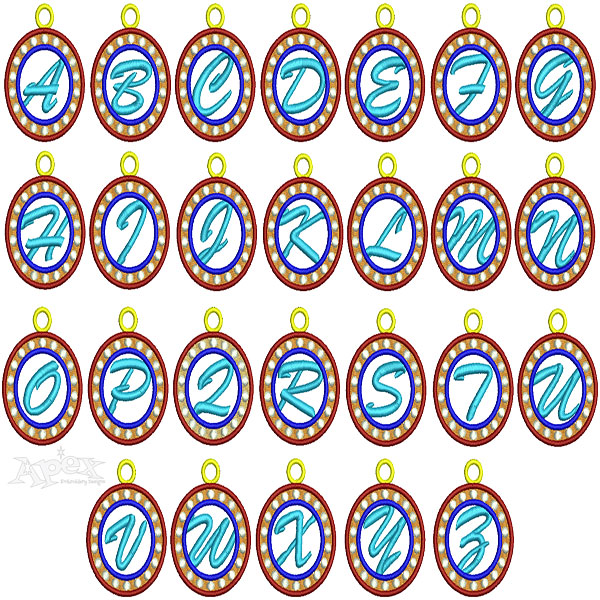
Free Standing Embroidery Fonts
There is a rare, breathtaking alchemy in freestanding lace embroidery—an art where thread leaves the supportive embrace of woven fabric and learns to stand entirely on its own. In digitizing the Free Standing Embroidery Fonts, our studio set out to translate classic typographic elegance into delicate, thread-sculpted heirlooms. Each letter is born from an intricate architectural dialogue of interlocking micro-lattices and smooth satin borders, designed to hold its form with poise and grace once the supporting medium washes away. The result is pure, ethereal lace with substantial tactile integrity, evoking the romantic beauty of vintage European needlepoint for the modern embroidery artisan.
Project Ideas for Free Standing Embroidery Fonts
Because these letters exist independently of any base fabric, they unlock an inspiring spectrum of heirloom crafting and bespoke gifting possibilities:
- Heirloom Holiday Ornaments: Stitch individual initials in gilded metallic or crisp spun-cotton rayon, suspended from velvet ribbons to create treasured family keepsakes.
- Bespoke Table Linens: Craft freestanding monogram rings or delicate lace pendants looped gracefully around raw-edge linen cocktail napkins for luxury dining.
- Bridal Keepsakes & Bouquets: Tie dimensional initials into bridal florals, adorn garter bands, or embellish satin bridal robe ribbons with personalized romantic flair.
- Personalized Gift Packaging: Replace standard paper tags with reusable lace initial charms tied with organza bows to elevate luxury packaging.
- Dimensional Apparel Applique: Lightly hand-tack finished lace letters onto denim jackets, linen tote pockets, or cashmere wraps for high-end tactile dimension.
Unlike traditional flat embroidery, freestanding alphabet motifs offer exceptional versatility in how and where they are showcased:
- Suspended Accents: Utilize the integrated top loops or needlework openwork to hang the finished initials freely as standalone medallions and charms.
- Window & Hemstitch Insertions: Position letters within open cutwork frames or along the ladder-stitched hems of heirloom table runners for an antique lace effect.
- Layered Applique Relief: Tack directly atop finished textiles—such as the corner diagonal of a guest towel or the center chest of a tailored robe—allowing the natural openwork to reveal the contrasting fabric beneath.
- Stemware & Bottle Adornments: Drape personalized lace letters around carafes, decanters, or champagne flutes for unforgettable anniversary and wedding tablescapes.
Free Standing Embroidery Fonts Craft & Letterform Details
Digitizing freestanding lace requires a master-level understanding of thread tension, structural geometry, and fiber physics. Every stroke in this font is engineered with a proprietary three-layer foundation: first, a dual-direction foundation grid that forms an unbreakable web; next, supportive bridge stitches that link freestanding elements securely together; and finally, a rich, lustrous satin stitch finish that encases the structural edges.
We carefully calibrated the letterforms with graceful, sweeping serifs and generous internal filigree, ensuring that delicate ascenders and descenders never curl, warp, or distort after drying. The density is balanced to perfection—heavy enough to retain a crisp, self-supporting silhouette, yet light enough to preserve the delicate, airy character of authentic vintage lace. It is a harmonious marriage of structural engineering and fine typographic art, destined to be stitched and cherished for generations.